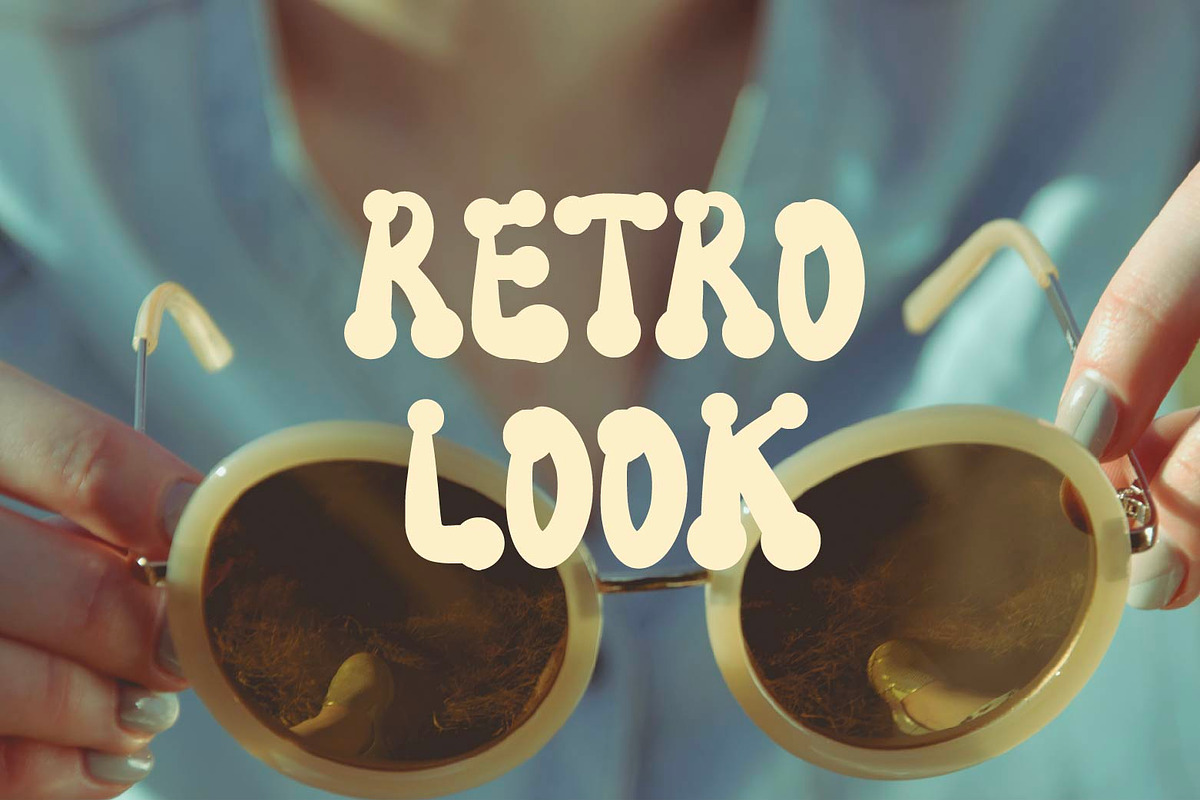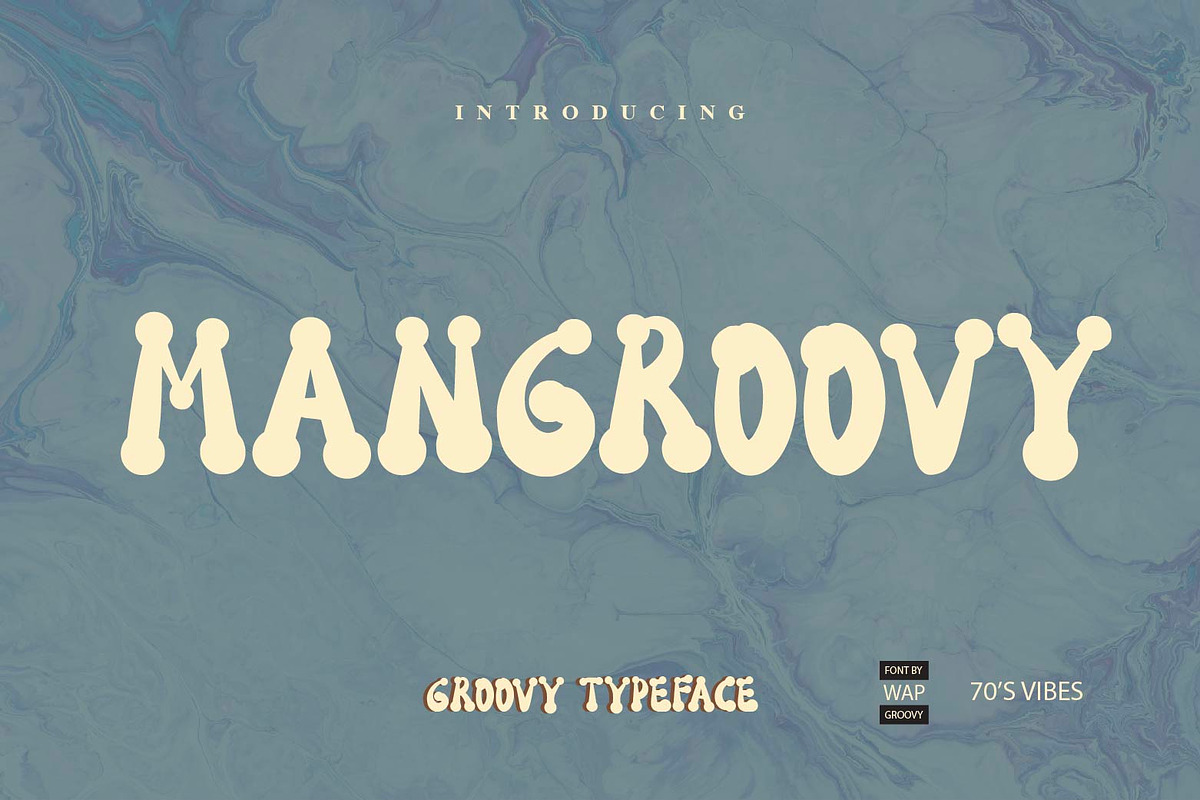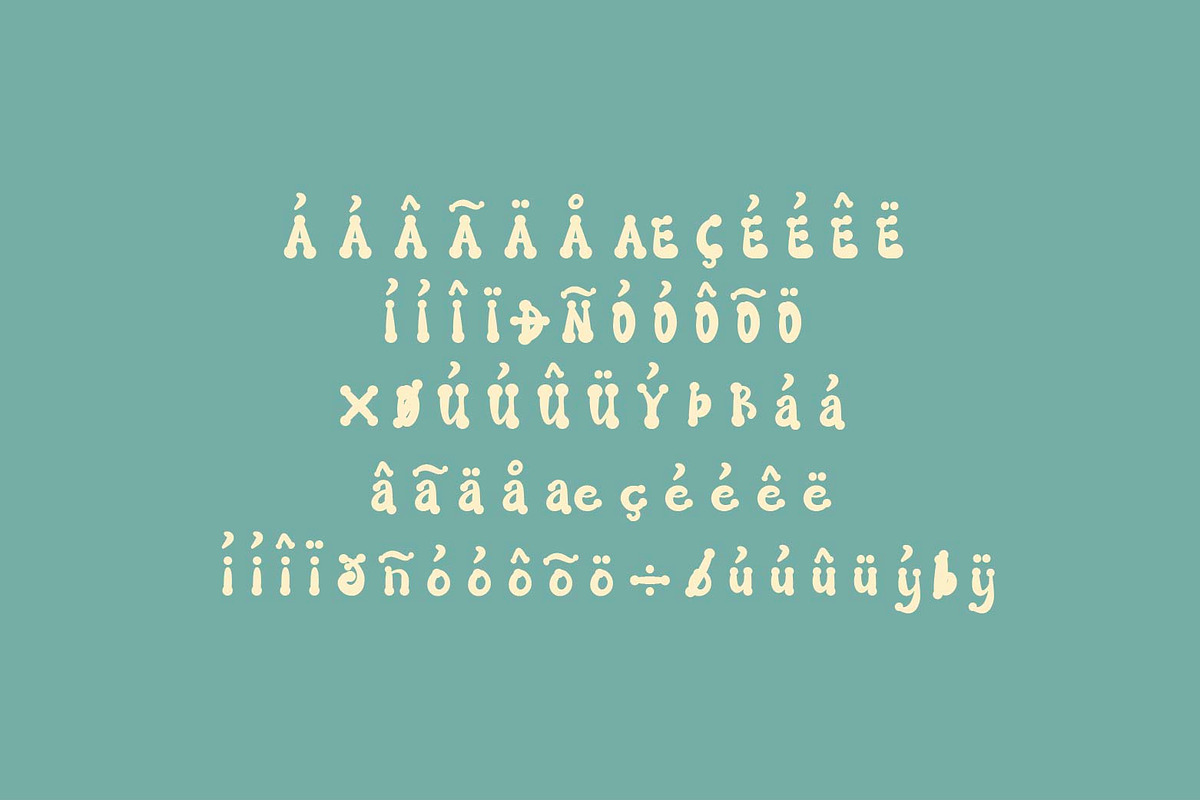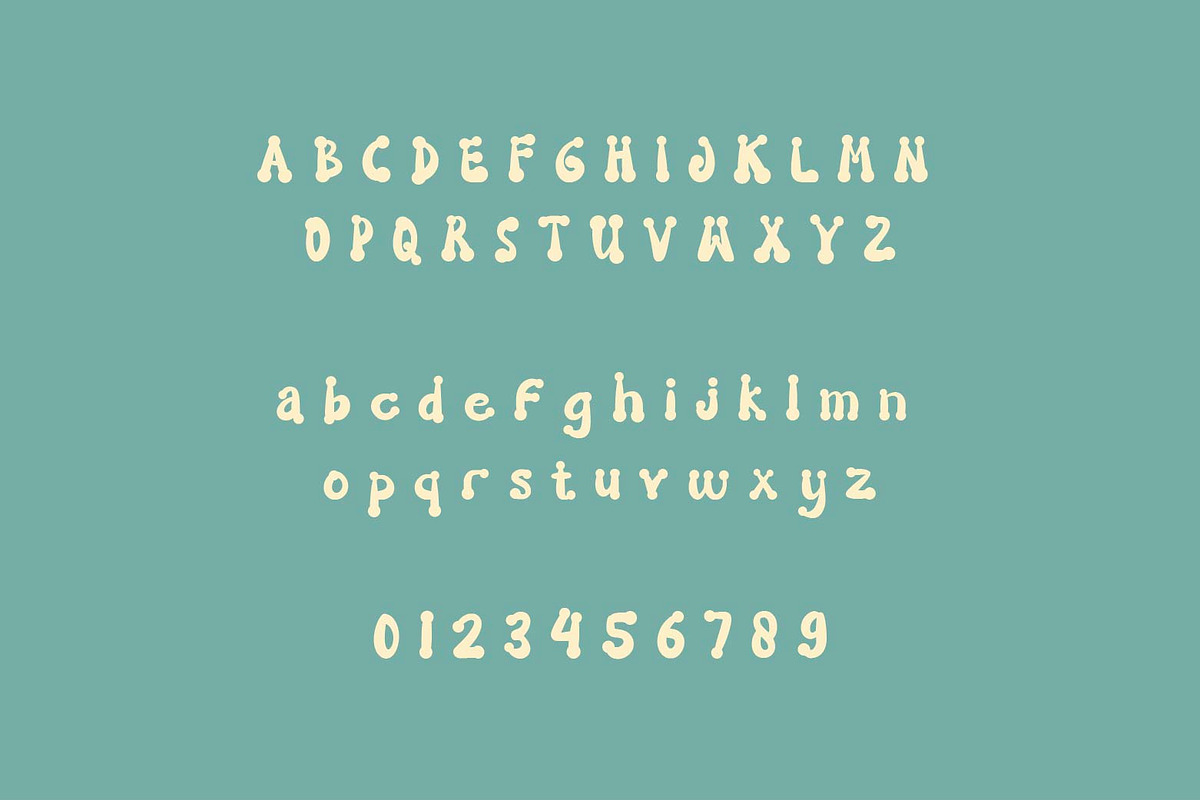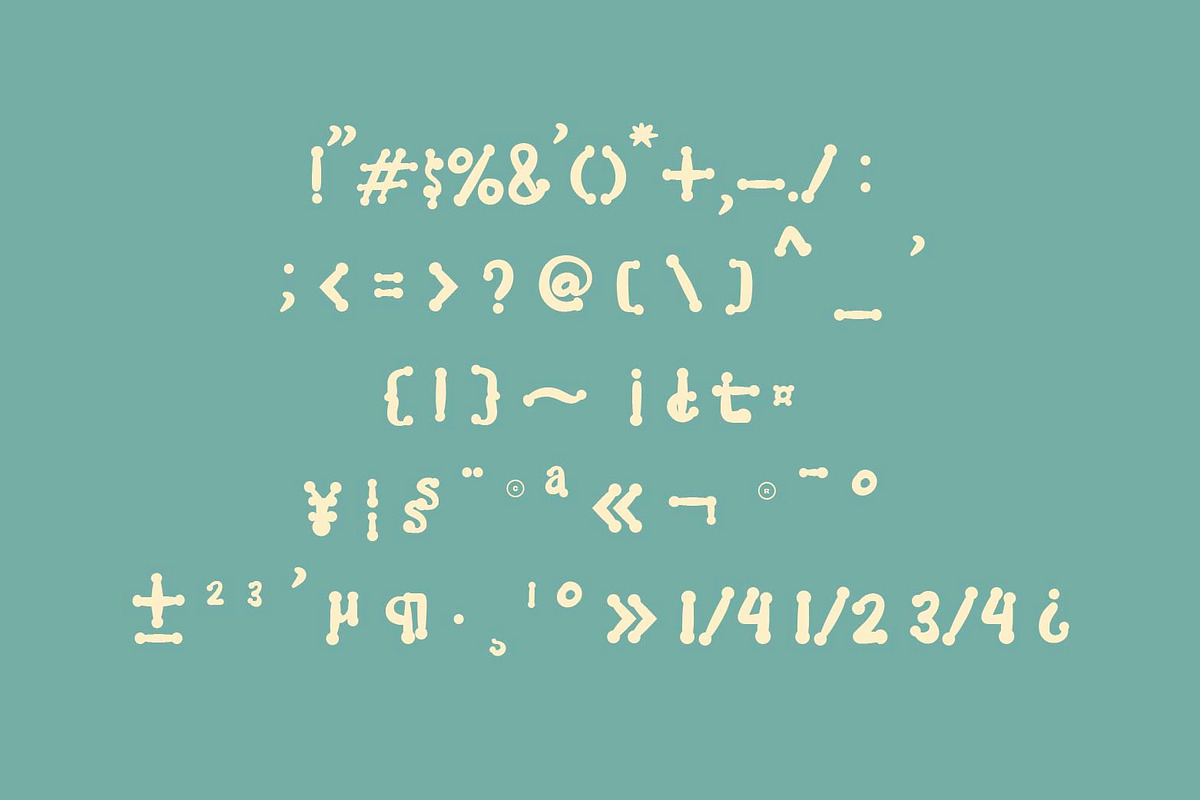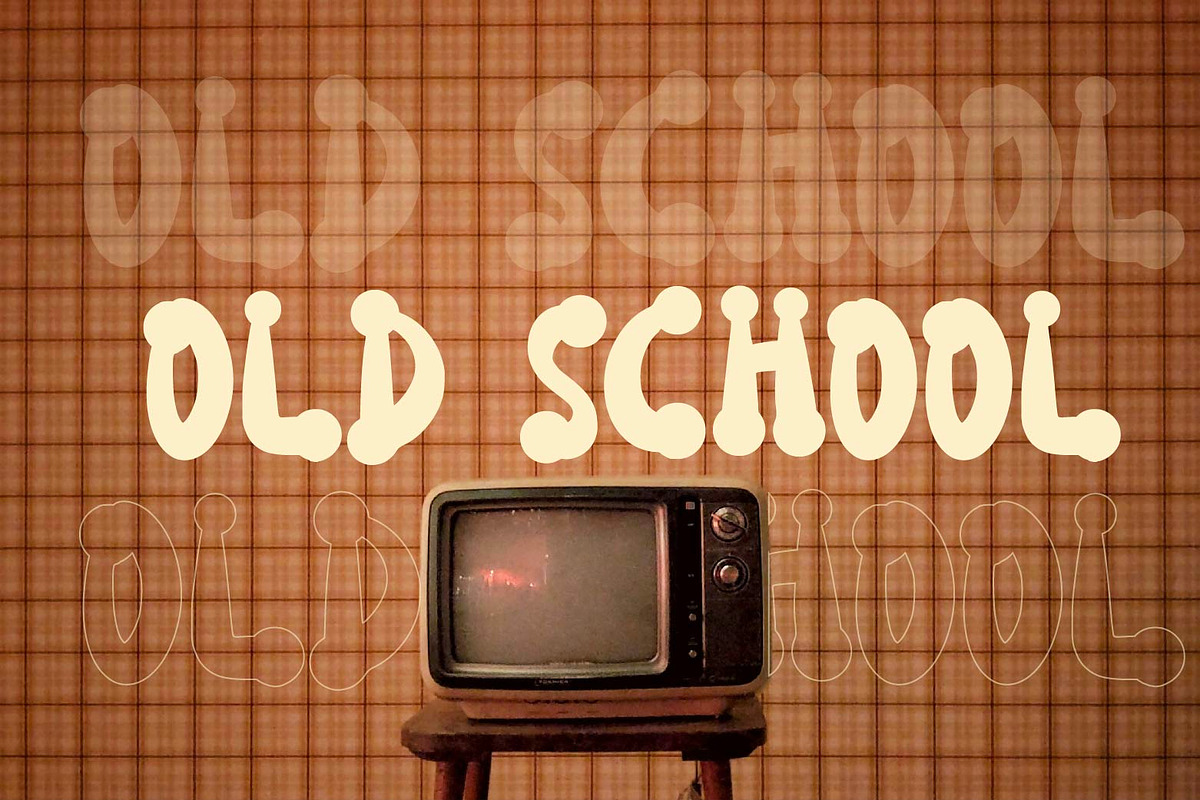
MANGROOVY retro vintage groovy type
This font has groovy vibes, suitable for old themes because this font is very attractive and unique.
Uppercase, Lowercase Punctuation & Number, Support in Mac and Windows OS Multilingual Support ÀÁÂÃÄÅÆÇÈÉÊËÌÍÎÏÐÑÒÓÔÕÖØÙÚÛÜÝ